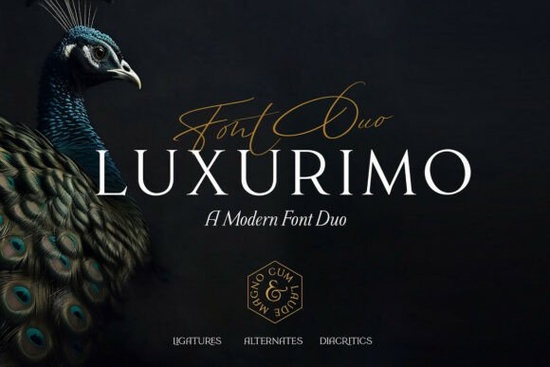
Luxurimo Font is a versatile typeface that combines the timeless appeal of a serif with the fluidity of a script. Designed for those who value both tradition and modernity, this font duo offers a refined look suitable for a wide range of creative projects. Whether you're working on wedding invitations, luxury branding, or high-end fashion designs, Luxurimo delivers the perfect balance of elegance and style.
One of the standout features of Luxurimo is its ability to adapt to different design needs. The serif version provides a classic, professional feel, while the script variant adds a touch of personalization and movement. This makes it ideal for logos, social media graphics, and print materials that require a sophisticated appearance. Its clean lines and graceful curves ensure readability without sacrificing visual impact.
For designers looking for a reliable font that can elevate their work, Luxurimo Font is an excellent choice. It’s particularly useful for creating content that conveys luxury and refinement. The font’s versatility allows it to shine in both digital and physical formats, making it a valuable addition to any designer’s toolkit.
Why Choose Luxurimo Font?
Luxurimo Font stands out due to its unique combination of styles. The serif typeface offers a strong foundation, while the script style brings a sense of creativity and expression. This dual approach makes it easy to use in various design contexts, from formal documents to artistic compositions. Its compatibility with different design software ensures smooth integration into your workflow.
Another advantage of Luxurimo is its ease of use. The font comes in a bundle, allowing you to switch between styles depending on your project’s requirements. This flexibility is especially beneficial for small businesses and independent creators who need to maintain a consistent brand identity across multiple platforms.
Best Uses for Luxurimo Font
Luxurimo Font is well-suited for a variety of applications. For instance, it works exceptionally well for wedding stationery, where the elegant script adds a personal and romantic touch. The serif version can be used for formal elements like addresses or dates, while the script style shines in headings or decorative text.
In the world of fashion and luxury branding, Luxurimo provides a polished look that aligns with high-end aesthetics. It can be used for packaging, banners, or promotional materials that aim to convey sophistication. Its clean and modern design also makes it a great fit for Instagram content, where visual appeal is key.
For print-on-demand sellers, Luxurimo Font offers a professional edge that can set your products apart. Whether you're designing t-shirts, mugs, or greeting cards, this font adds a touch of class that resonates with customers looking for quality and style.
How to Use Luxurimo Font Effectively
To get the most out of Luxurimo Font, consider the following tips. First, experiment with different sizes and spacing to find the right balance for your design. The font’s legibility makes it suitable for both large headlines and smaller body text.
Second, pair it with other complementary fonts to create visual contrast. For example, using a sans-serif font alongside Luxurimo can add a modern twist to your layout. This approach helps maintain visual interest without overwhelming the viewer.
Finally, always test the font in different formats. Ensure it looks good on both digital screens and printed materials. This step is crucial for maintaining consistency across all your design projects.
Whether you're a designer, craftsperson, or small business owner, Luxurimo Font is a valuable tool that can enhance your creative work. Its blend of elegance and functionality makes it a go-to choice for anyone seeking to elevate their design projects.